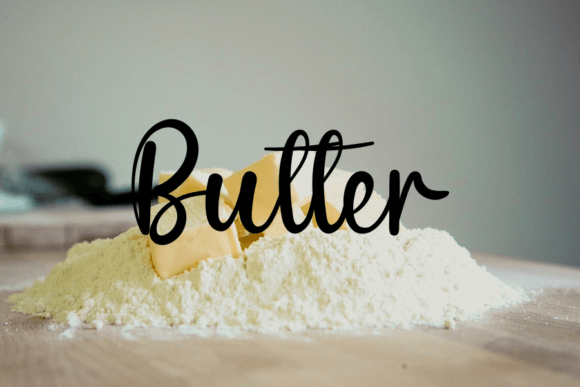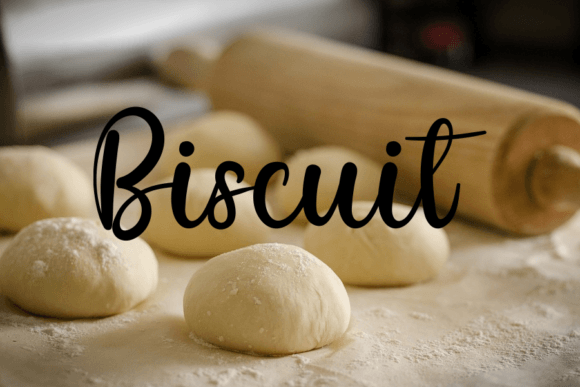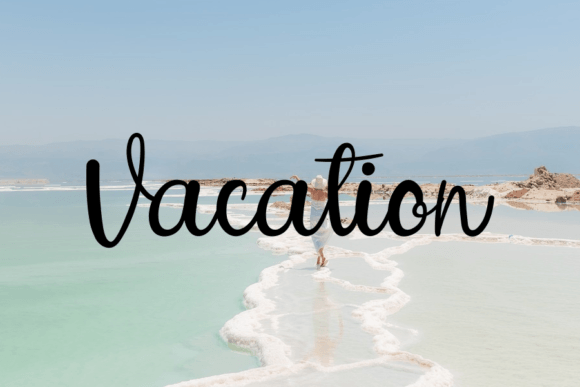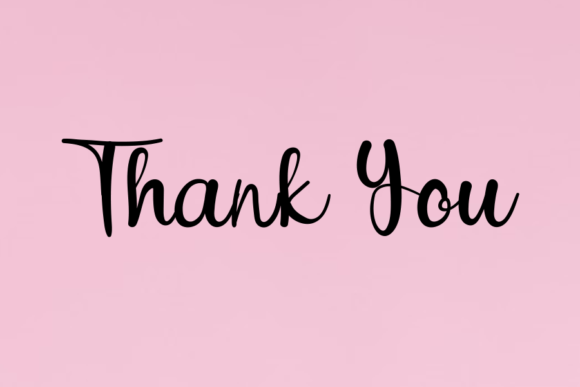
Handmade Mandala Font
About Handmade Mandala Font
Handmade Mandala is a cheerful and approachable handwritten font that captures the essence of creativity and simplicity. Designed with clean, balanced strokes and a casual vibe, this font brings a personal touch to any project. Whether you’re creating DIY crafts, digital designs, or heartfelt greeting cards, the Handmade Mandala font download is a perfect match for your artistic expression.
This font combines authenticity with elegance, giving your words a handwritten warmth without sacrificing legibility. From small-scale personal work to large design campaigns, it adapts beautifully across different media.
Ideal Uses for Handmade Mandala Font
This font is a versatile asset and works great in:
• Craft Projects – Add a handmade look to labels, planners, and printable art
• Greeting Cards – Ideal for holidays, birthdays, thank-yous, and handwritten-style messages
• Digital Presentations – Make slides feel more human and inviting
• Social Media Graphics – Use in Canva templates or Instagram stories for a soft, organic look
• Scrapbooks & Planners – Bring a personal feel to journals, to-do lists, or memory books
• Invitations – Works well for informal events, art parties, baby showers, and more
• Handwritten Look – Clean, friendly letterforms that resemble real handwriting
• Fully Scalable – Works in both large displays and small print
Why Choose Handmade Mandala?
The Handmade Mandala font download provides a flexible design solution for creators who want a clean, casual handwritten style. Whether you’re aiming for warm, welcoming branding or adding a gentle touch to your crafts, this font will your vision.
Let your designs speak with and charm—choose Handmade Mandala to bring them to life.